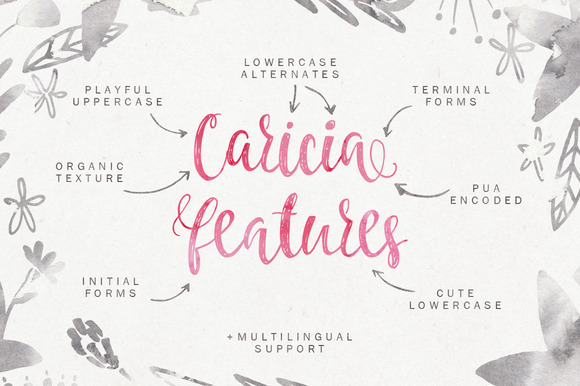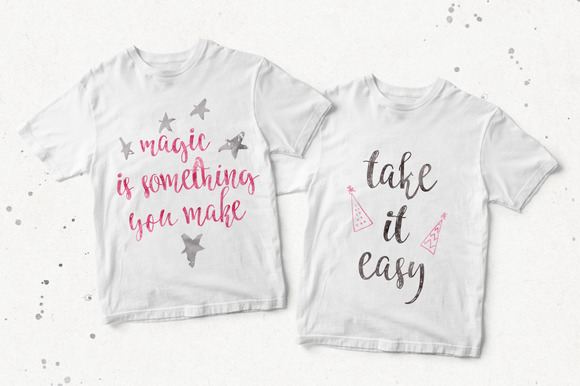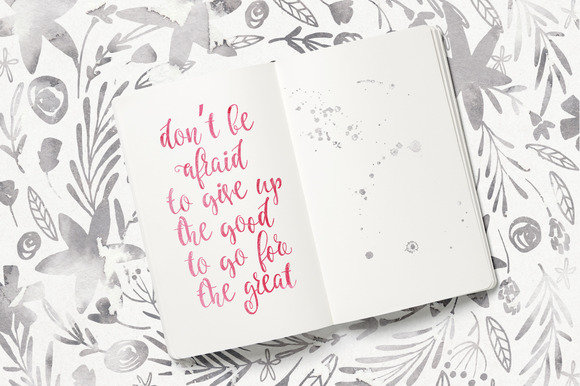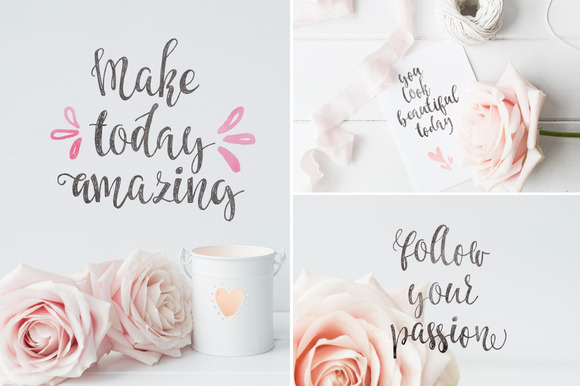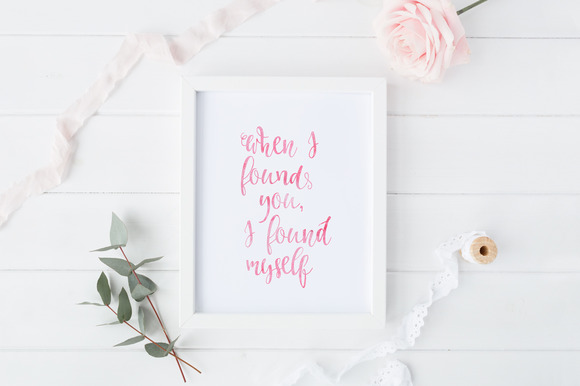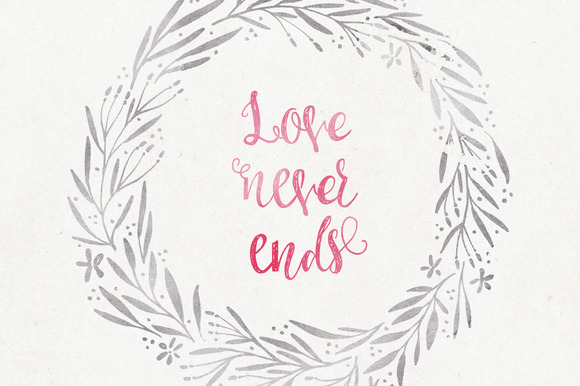
Discover the Gentle Elegance of Caricia Font
Do you remember the moment when you stumbled upon the perfect font for your design project? For many creatives, that ‘aha’ moment is a game-changer. It’s the difference between a decent design and a truly stunning one. And for designers looking to infuse their work with a touch of softness and sophistication, Caricia Font is an excellent choice.
Caricia Font is a beautifully crafted, gently feminine type created by Favete Art. Its purpose is to add a delicate, elegant touch to any design, from wedding invitations to luxury branding. With its flowing lines and subtle curves, Caricia Font is the perfect addition to any designer’s toolkit.
For designers, Caricia Font is a valuable asset, offering a unique blend of style and versatility. Its gentle elegance makes it an excellent choice for projects where subtlety is key, while its versatility ensures it can be used in a wide range of applications.
Caricia Font Key Features
- Font Style: Script, Calligraphy
- Unique Characteristics: Hand-drawn, elegant, and refined script font with intricate details and flourishes, ideal for wedding invitations, greeting cards, and other special occasions.
Caricia Font Review
Caricia Font is a beautiful script font designed to add a touch of elegance and sophistication to any design project. Here’s my honest review:
The flowing curves of Caricia Font make it perfect for creating a romantic and feminine look.
The font’s subtle variations in letterforms add a sense of human touch, making it ideal for handwritten-style designs.
Caricia Font is highly legible, even at small font sizes, making it suitable for a wide range of applications.
Caricia Font may not be the best choice for bold or heavy typography, as its delicate curves can get lost in larger font sizes.
The font may not be as versatile as some other script fonts, which can limit its use in certain design contexts.
Caricia Font is a lovely addition to any designer’s toolkit. Its elegant and romantic aesthetic makes it perfect for wedding invitations, greeting cards, and other feminine designs. While it may have some limitations, its unique charm and beauty make it a great choice for designers looking to add a touch of sophistication to their projects.
Caricia Font is a versatile font that works well for headings, titles, and body text. Use it to add a touch of elegance and sophistication to your designs.
Caricia Font is a high-quality font that works well for both digital and print designs. Use it to add a professional touch to your projects.
Caricia Font is a clean and modern font that works well for presentations and documents. Use it to add a touch of professionalism to your work.
- Use Caricia Font for headings and titles to add a touch of elegance and sophistication.